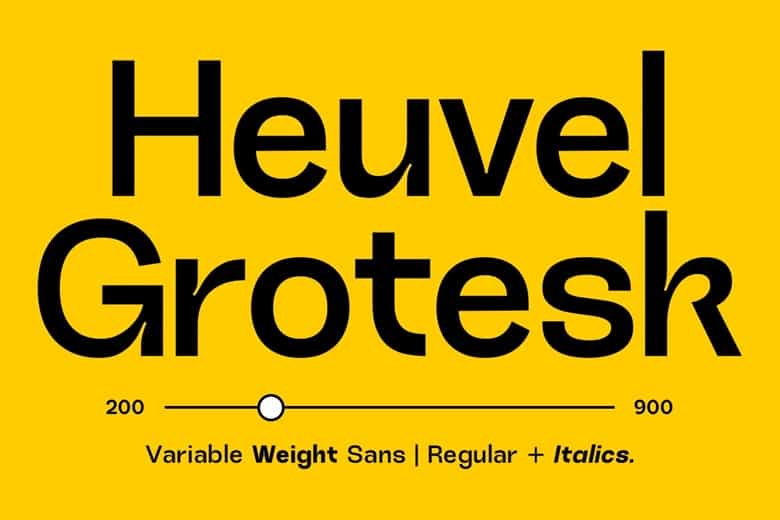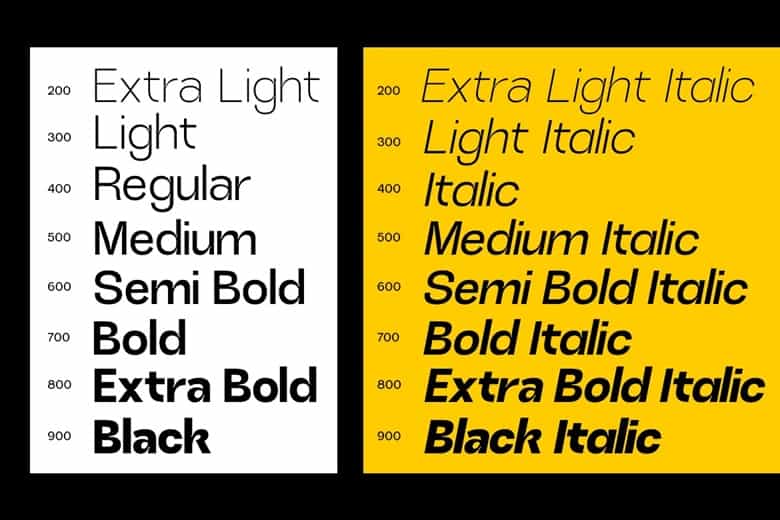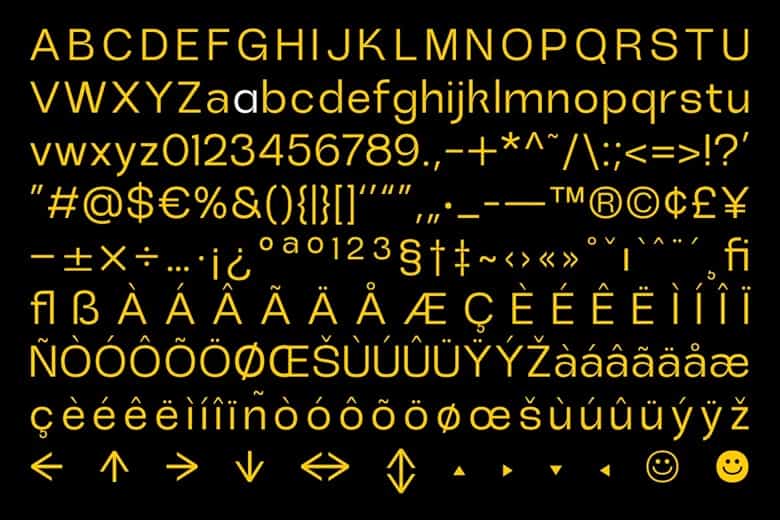
Heuvel Grotesk is a modern sans serif font family with 8 weights and italics, plus a Variable font file.. This font is a perfect combination of traditional and contemporary styles with bold and clear inktraps. Great for branding, web projects, titles, and logos.